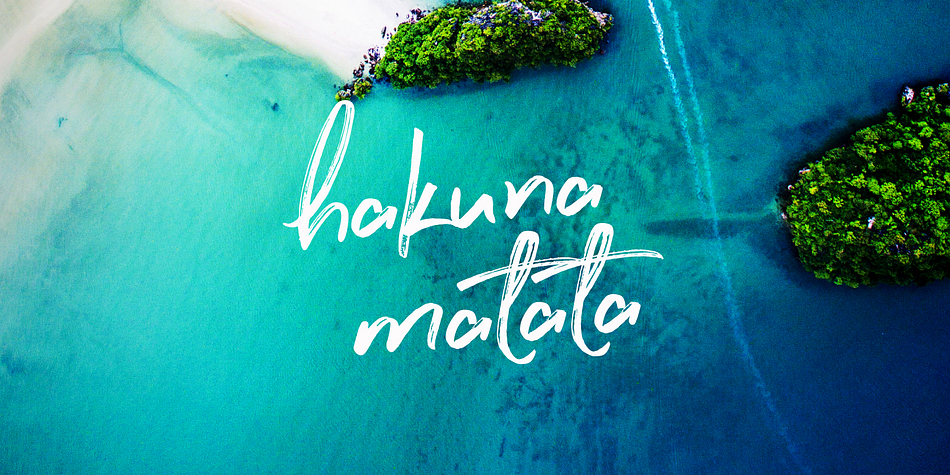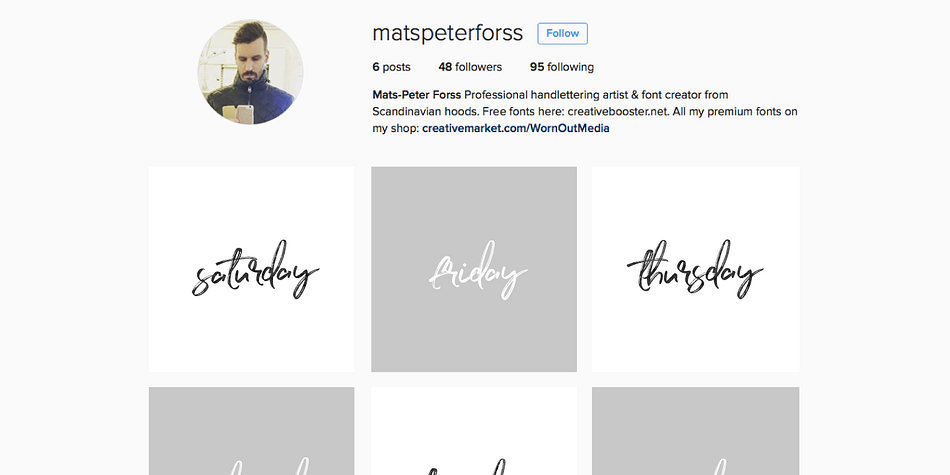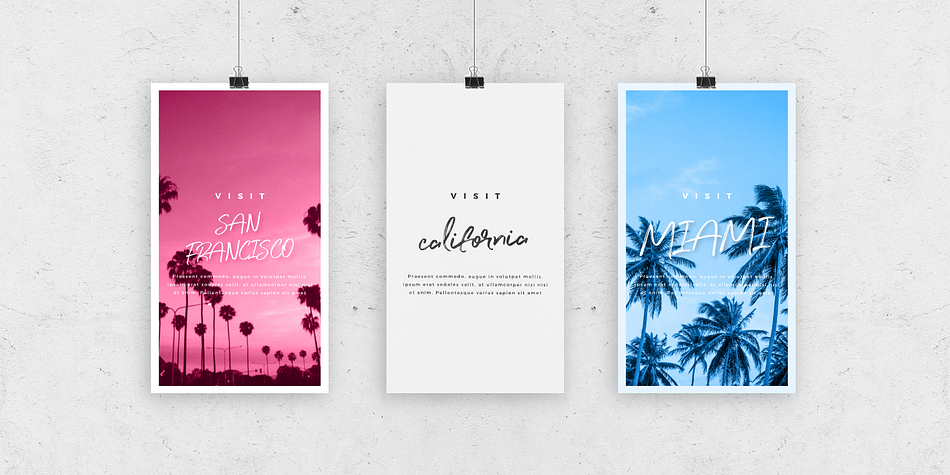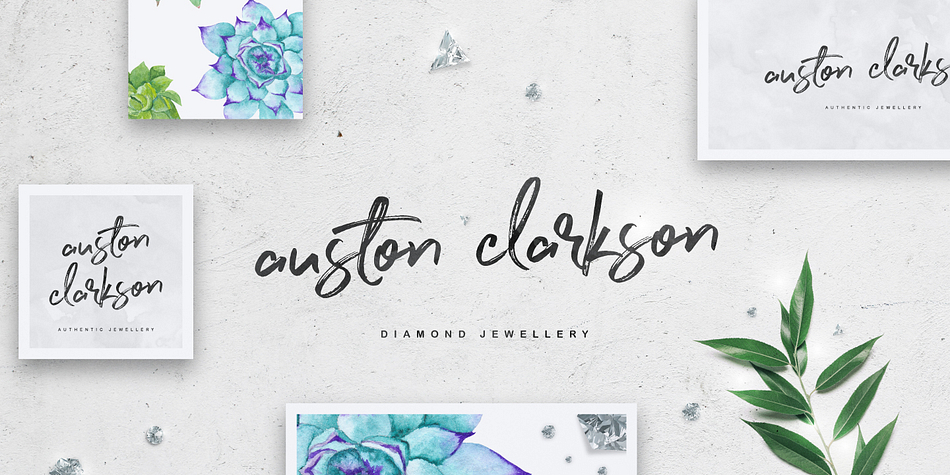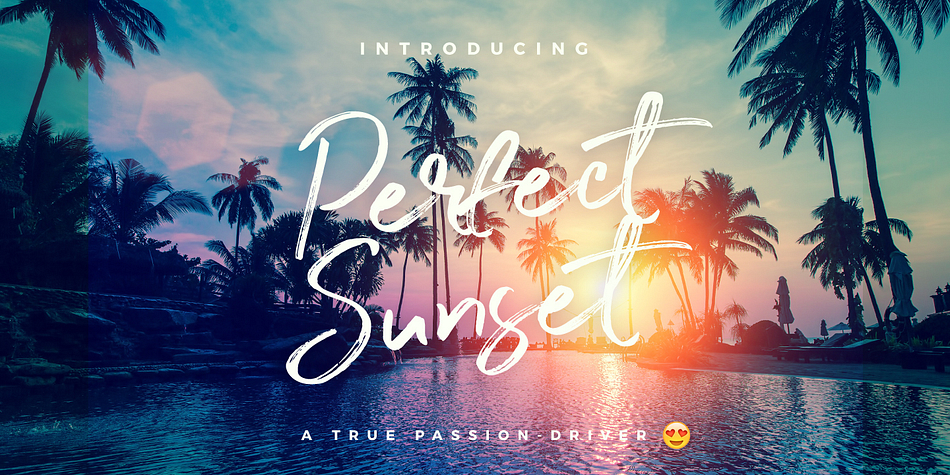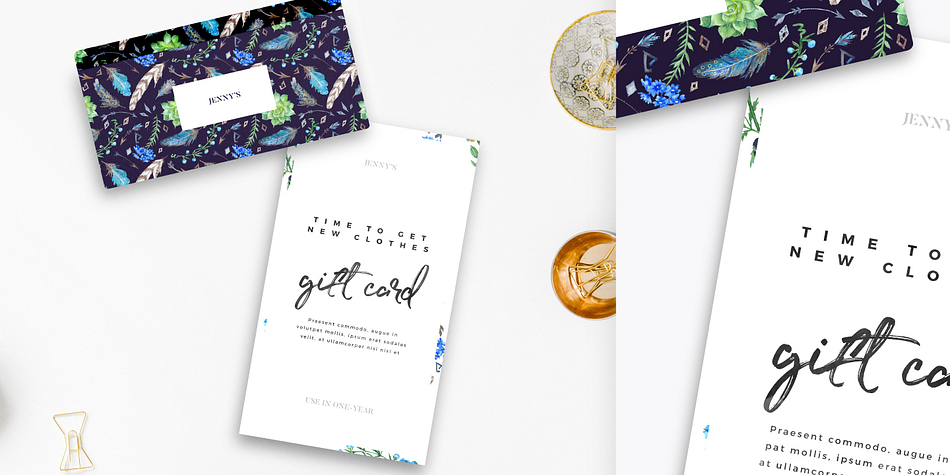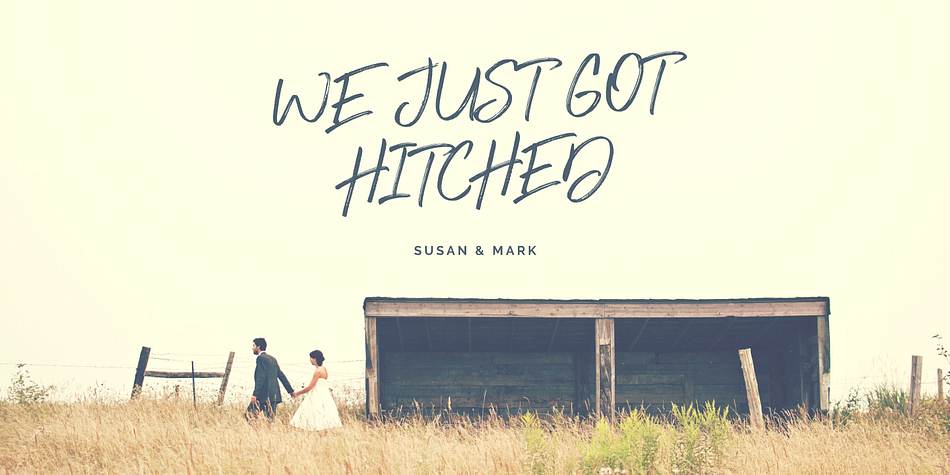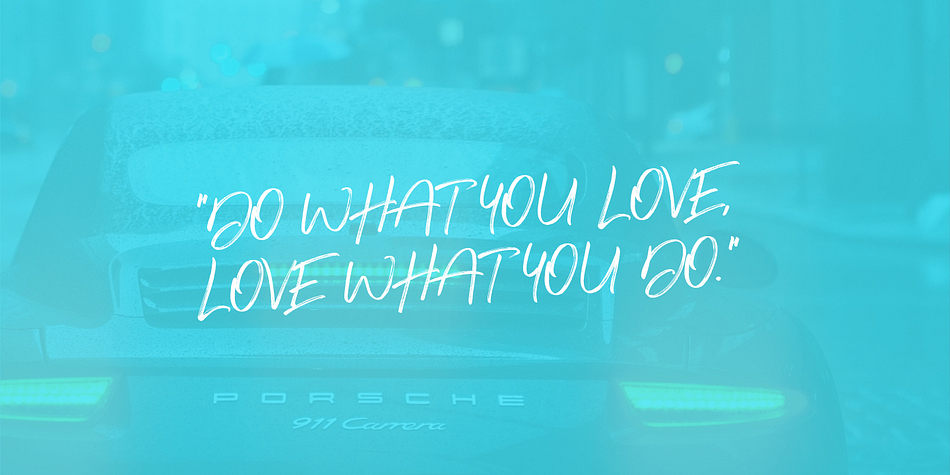
Perfect Sunset is a script and modern calligraphy font family. This typeface has three styles and was published by Mats-Peter Forss.
Say Howdy to The Perfect Sunset Typeface!! Inspired by the modern popular hand lettering style and super-fancy blog/social media designs, this font will make your designs instantly jaw-breaker!
This true passion-driver is made with a real dry ink brush by Pentel and scanned through high-definition Canon scanner. Then I did a few magic tricks with Illustrator, Photoshop, and Glyphs to make it 100% professionally made typeface.
I’ve added alternates for the lowercase characters so you can get the instant authenticity to your design. Uppercase characters work perfectly with lowercase, but they are also made to work as an ALL-CAPS font alone so you actually get two fonts for one.